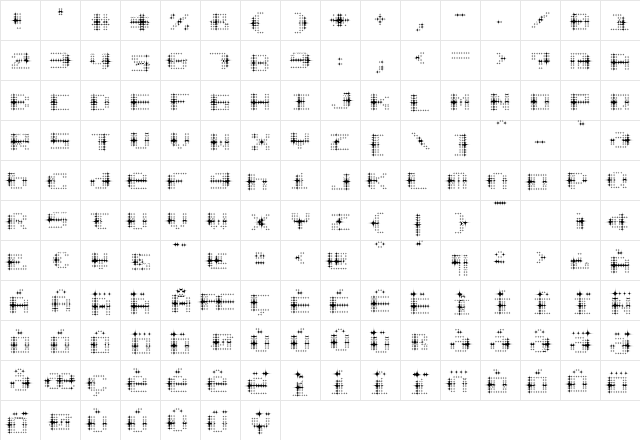
Stardust Regular Free Font
Stardust Regular
Design Context for Stardust
Stardust is a composed and adaptable typeface that performs quietly and consistently across a wide range of design contexts.